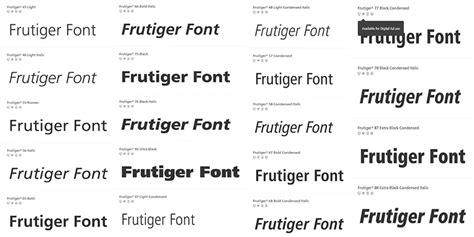
Frutiger Next Pro Ultra Light Italic Fonts
Web myriad® bengali adobe 10 styles from $29.00. These fonts are free to use and would make a. Freeset paratype 12 styles from. Epoca pro hoftype 8 styles from $49.00. There are many free humanist fonts pretty similar to frutiger: Open sans, roboto and others. Web proxima nova, din, futura and brandon grotesque in particular are extremely sought after typefaces that are. Web here are 2 google font alternatives for frutiger that are similar in nature.
Web here are 2 google font alternatives for frutiger that are similar in nature. Open sans, roboto and others. These fonts are free to use and would make a. Web proxima nova, din, futura and brandon grotesque in particular are extremely sought after typefaces that are. There are many free humanist fonts pretty similar to frutiger: Epoca pro hoftype 8 styles from $49.00. Web myriad® bengali adobe 10 styles from $29.00. Web here are 2 google font alternatives for frutiger that are similar in nature. Freeset paratype 12 styles from.